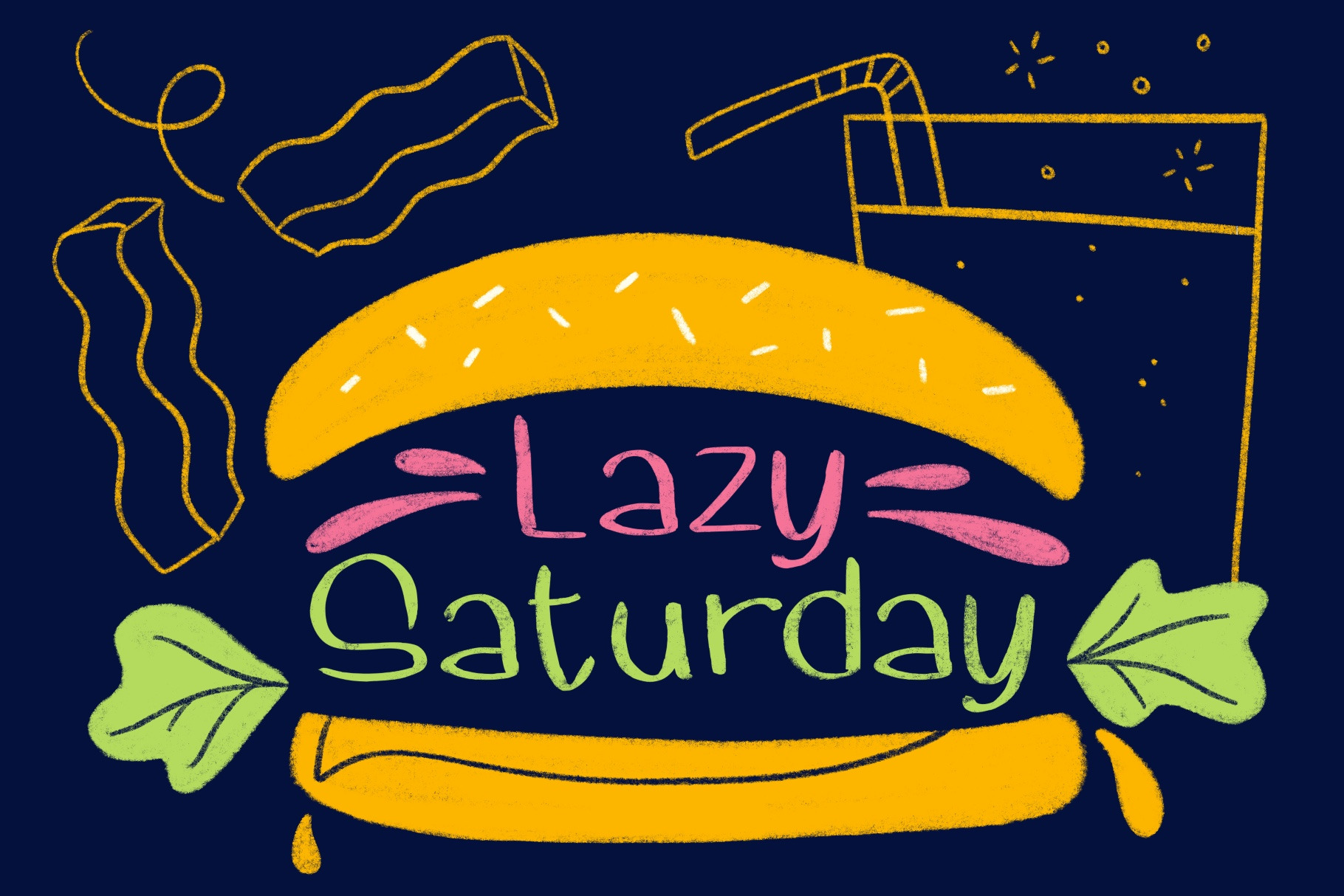
Lazy Saturday font
Lazy Saturday is a fun handwritten font easy to use in any kind of graphic projects. You can also use it as a note taking font in your digital planners.